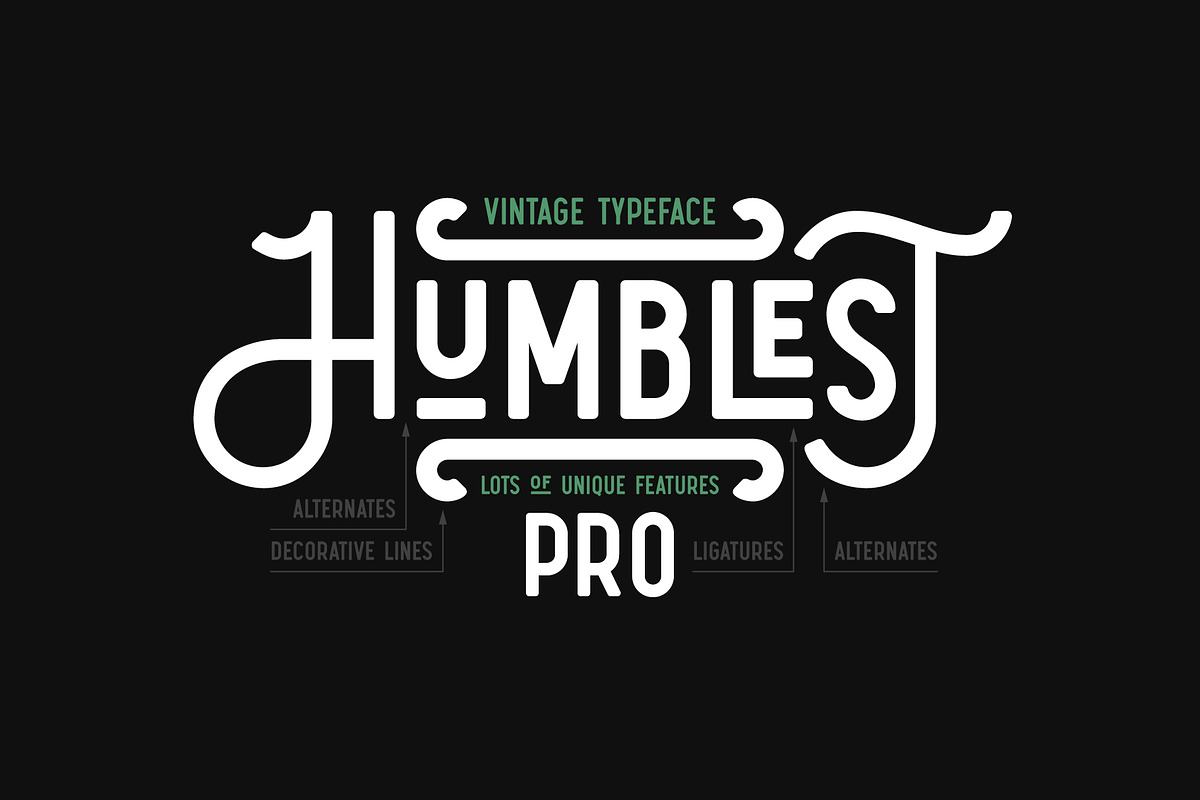
Humblest Pro Font Free Download is a sleek and modern sans-serif typeface designed to bring a sophisticated yet understated look to your designs. Featuring clean, balanced letterforms and excellent legibility, this font is perfect for branding, editorial layouts, logos, websites, and more.
Its minimalist design ensures that your message remains clear and professional, while its contemporary aesthetic adds a stylish touch. Whether you're working on a high-end brand identity, creating digital content, or crafting print materials, Humblest Pro Font Free Download offers versatility and elegance.